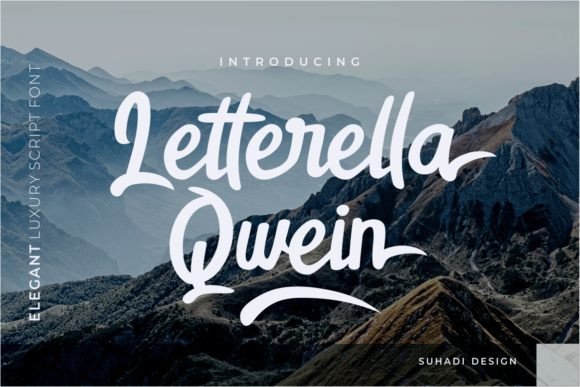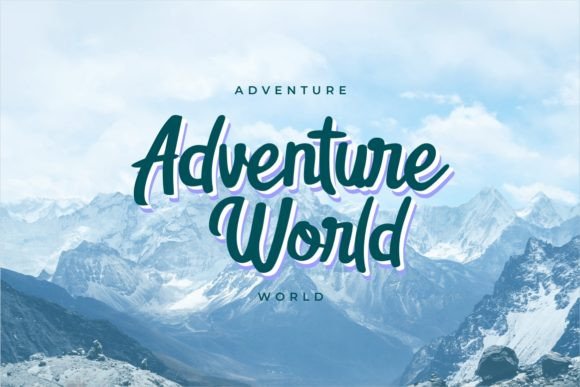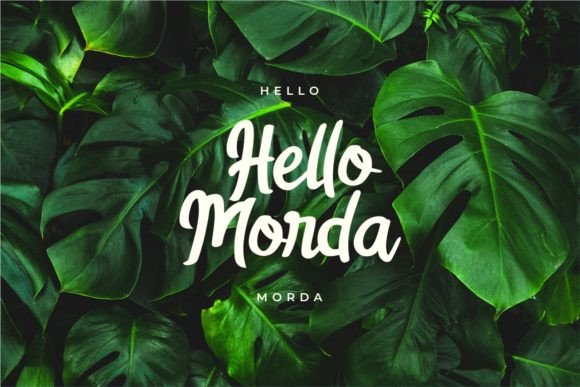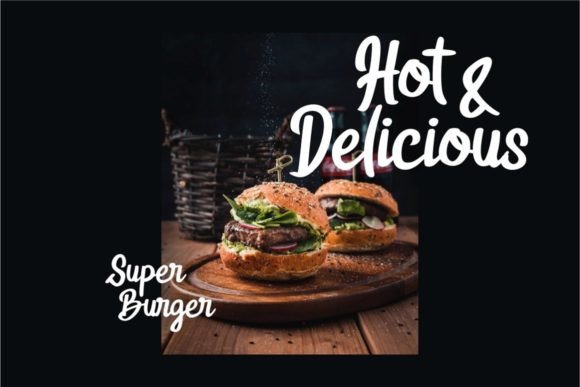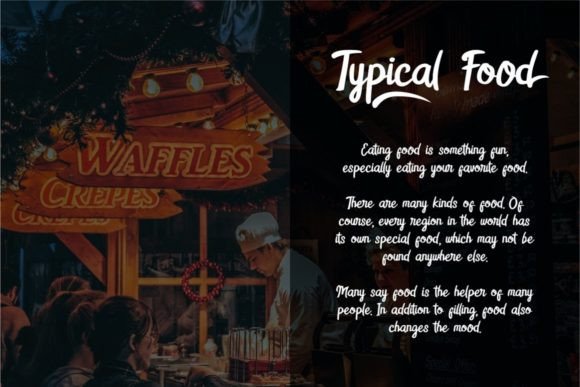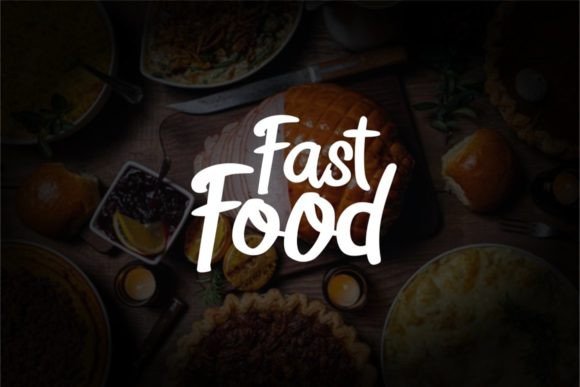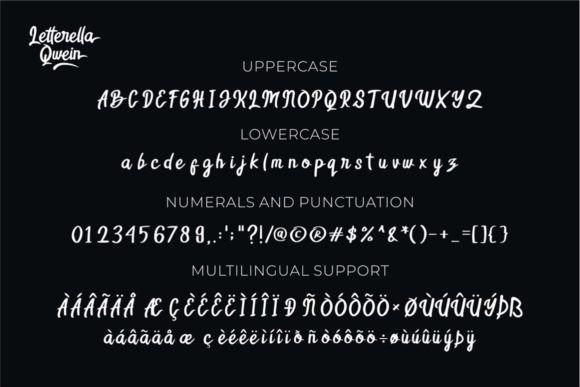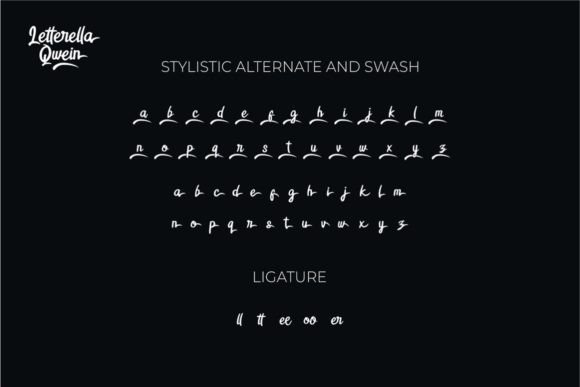
Letterella Qwein Font
About Letterella Qwein Font
Letterella Qwein is a distinctive and visually captivating retro handwritten font that effortlessly infuses elegance and creativity into your projects. With its unique blend of retro aesthetics and paint-brushed strokes, this font stands out as a versatile and eye-catching choice for various design applications.
The handwritten quality of Letterella Qwein adds a personal touch to your work, giving it a sense of authenticity and warmth. The curvy lines of the font contribute to its overall charm, creating an aesthetic that is both stylish and approachable. Whether you’re designing invitations, greeting cards, or promotional materials, this font has the potential to elevate your project and leave a lasting impression.
One notable feature of Letterella Qwein is its PUA encoding. The Private Use Area encoding allows users to easily access a wide range of glyphs and swashes. This means that you have the freedom to explore and experiment with different characters and decorative elements, providing you with a wealth of options to customize your designs. The versatility offered by PUA encoding ensures that your creative vision is not limited, allowing you to tailor the font to suit the unique requirements of your project.
In practical terms, the PUA encoding enables a seamless integration of Letterella Qwein into various design software, ensuring a smooth and user-friendly experience. Whether you’re a seasoned graphic designer or a novice exploring the world of creative projects, the accessibility of glyphs and swashes simplifies the process of incorporating intricate details into your work.
Consider using Letterella Qwein for branding, logo design, or any project where a touch of retro charm and handcrafted aesthetics are desired. Its elegant and curvy lines lend themselves well to a wide range of applications, allowing you to create visually stunning and memorable designs. Embrace the versatility and creativity offered by Letterella Qwein to make your work truly stand out in a crowded design landscape.